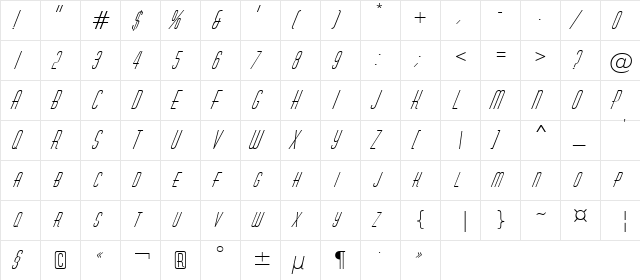
a_HuxleyCaps Italic
Design Context for a_HuxleyCaps Typeface
a_HuxleyCaps is a composed and adaptable typeface that performs quietly and consistently across a wide range of design contexts. The slanted form adds forward momentum and visual energy.
Pro Tip: Try a_HuxleyCaps for annotation and caption copy alongside an upright companion — the contrast in angle creates a dynamic but ordered typographic system.